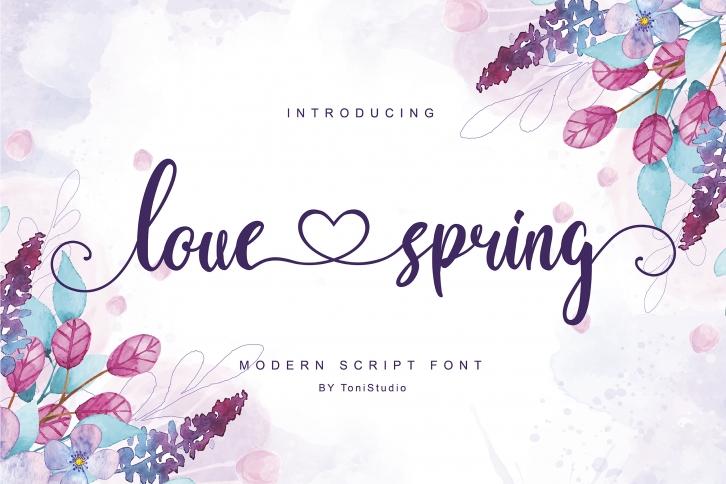
love spring is a modern script font that will raise every craft idea to the highest level. love springi comes with lots of swash, which will allow you to add decorative touches in seconds. This font is PUA encoded which means you can access all the magic glyphs and swash easily! It also has many special features including alternative flying machines and ligature.